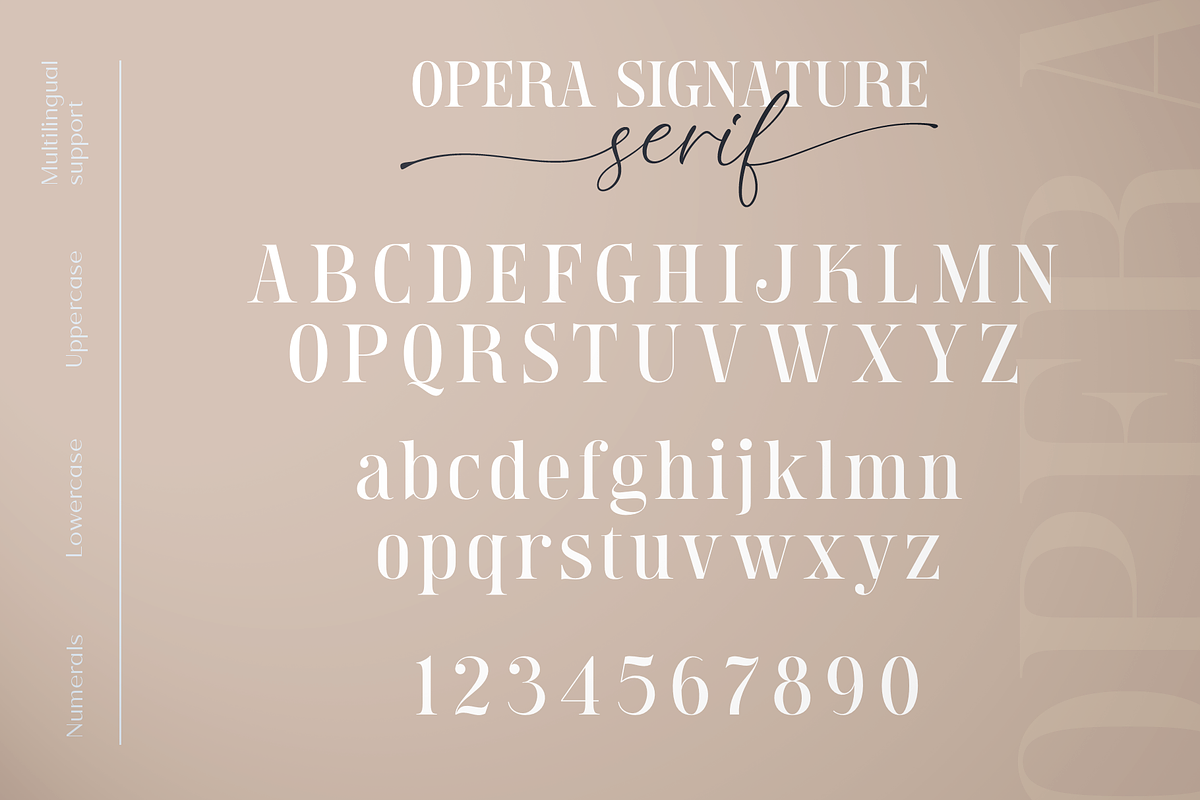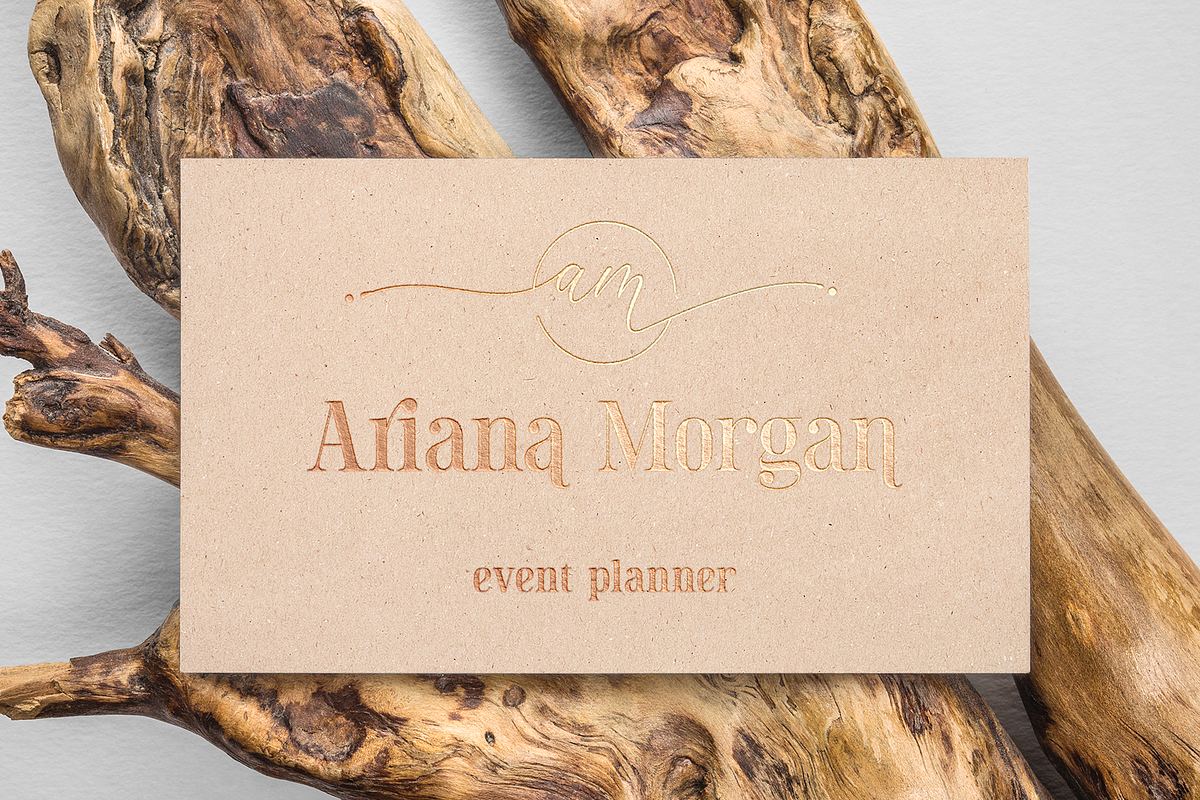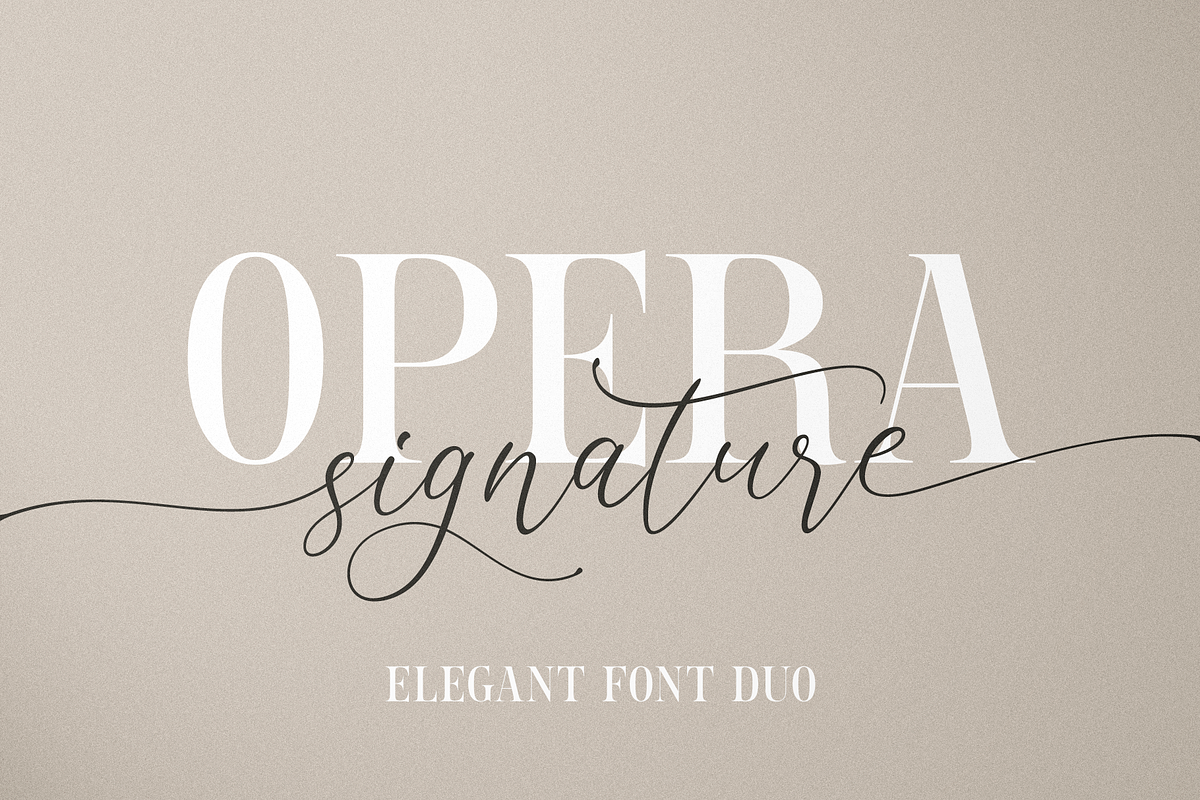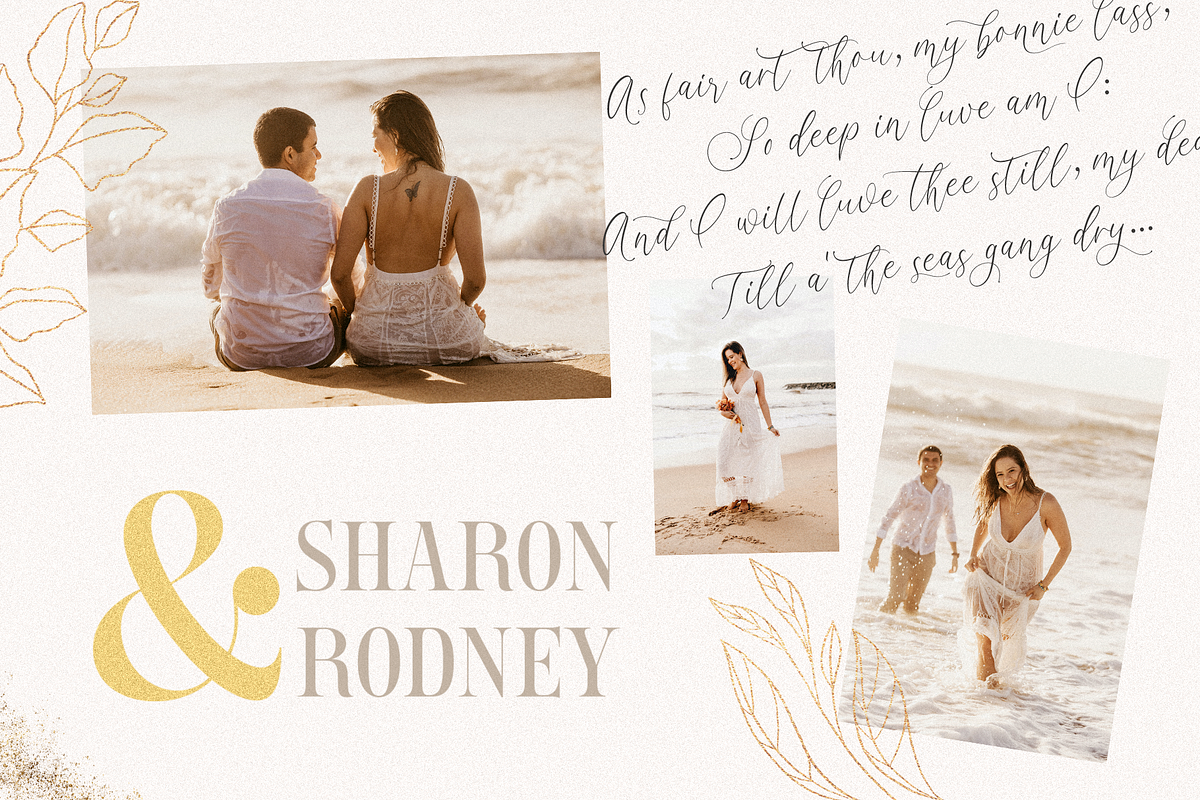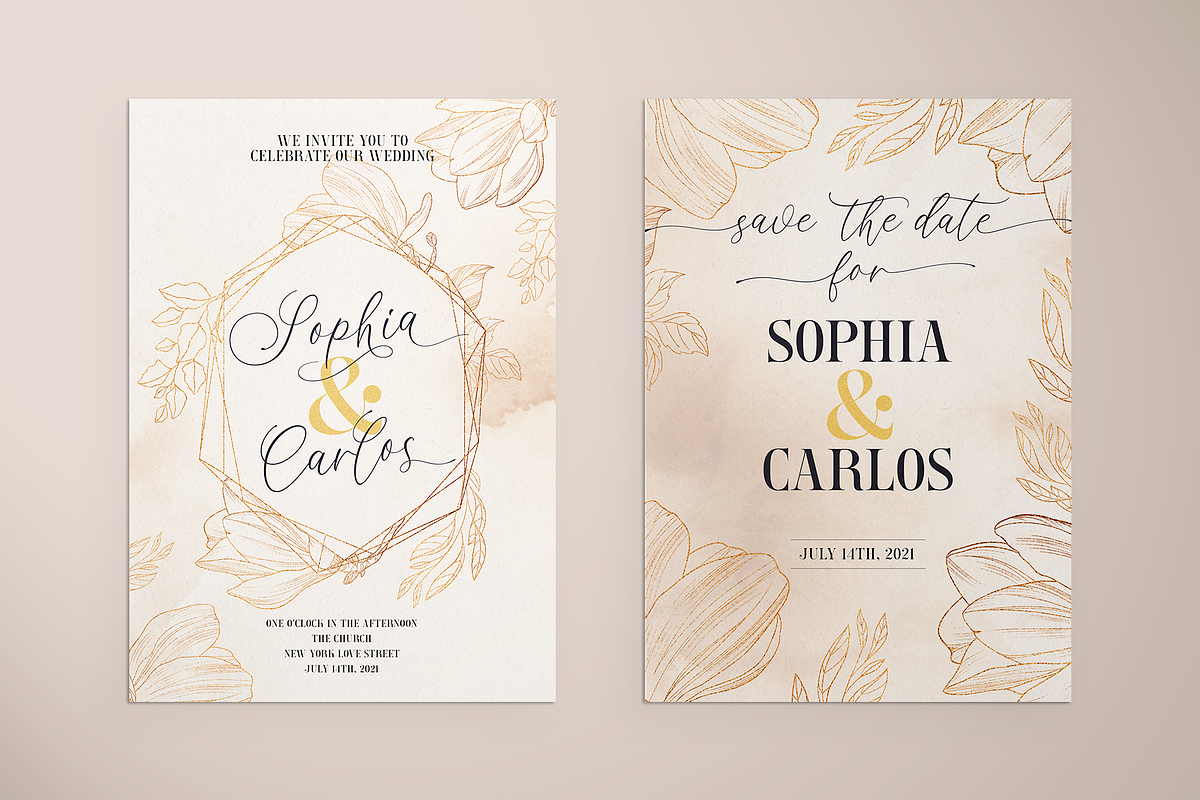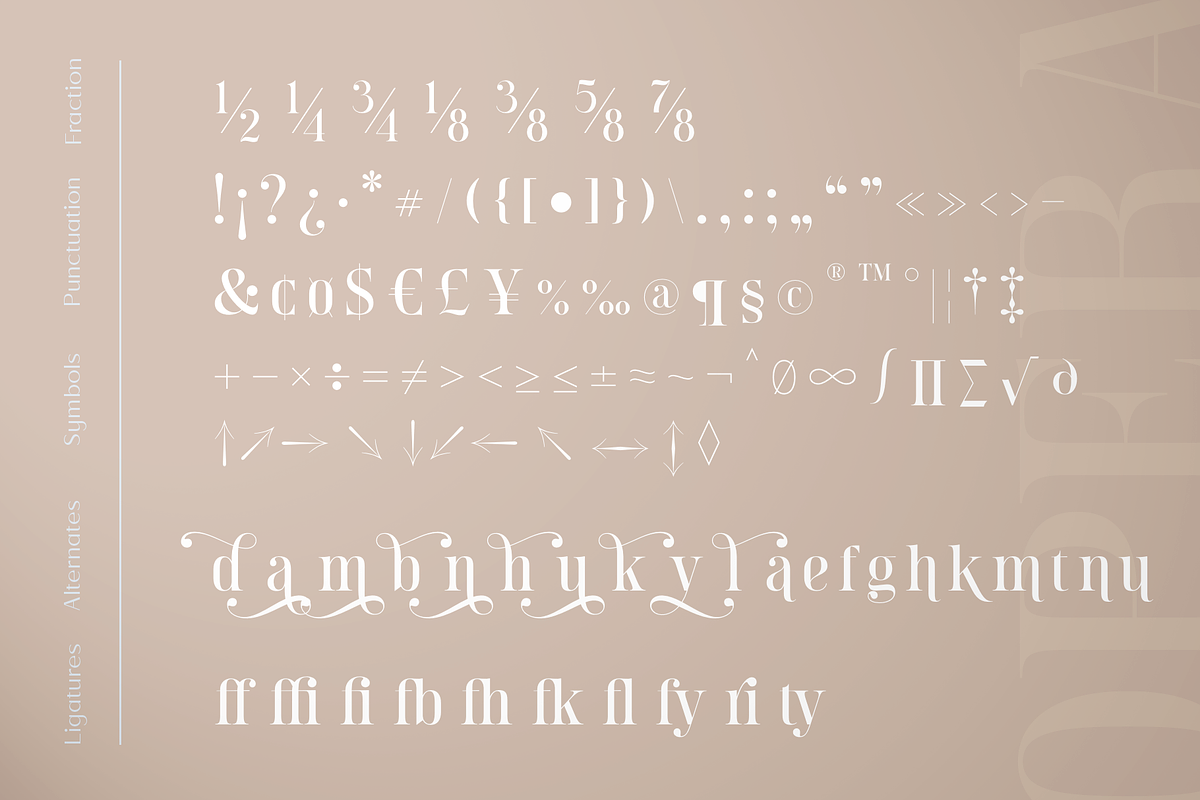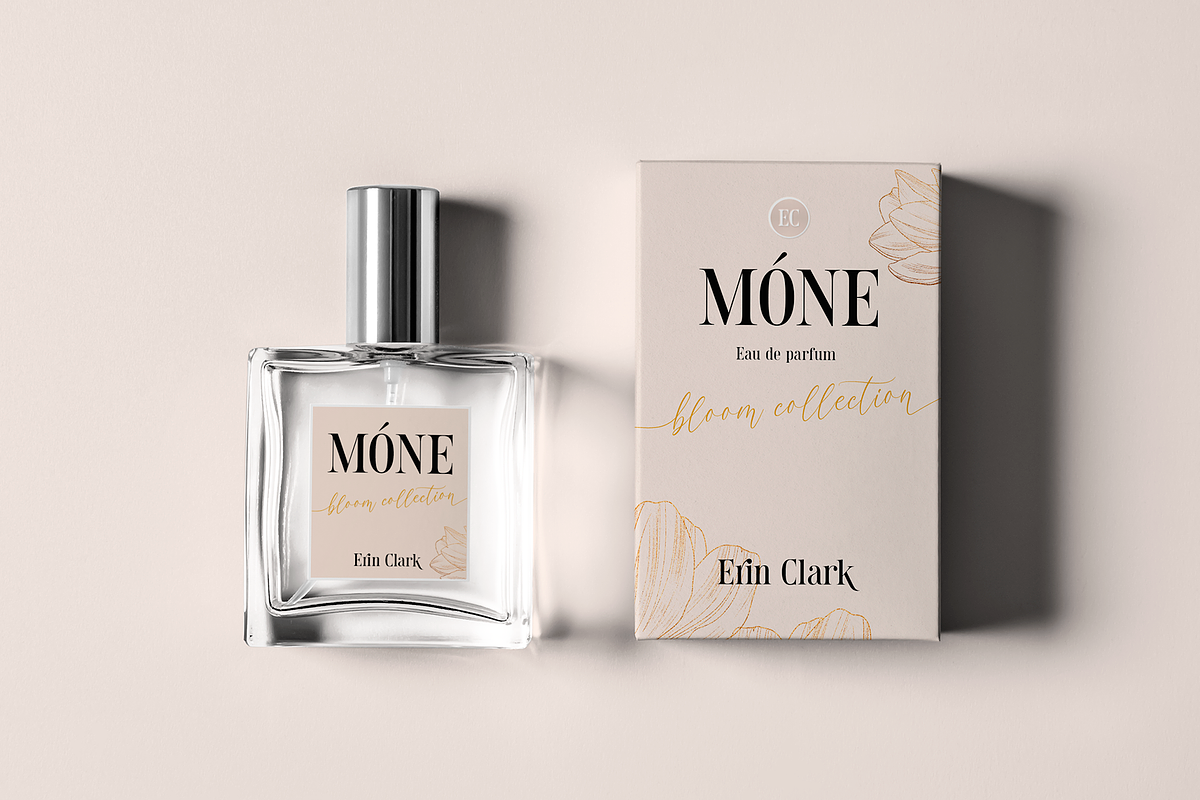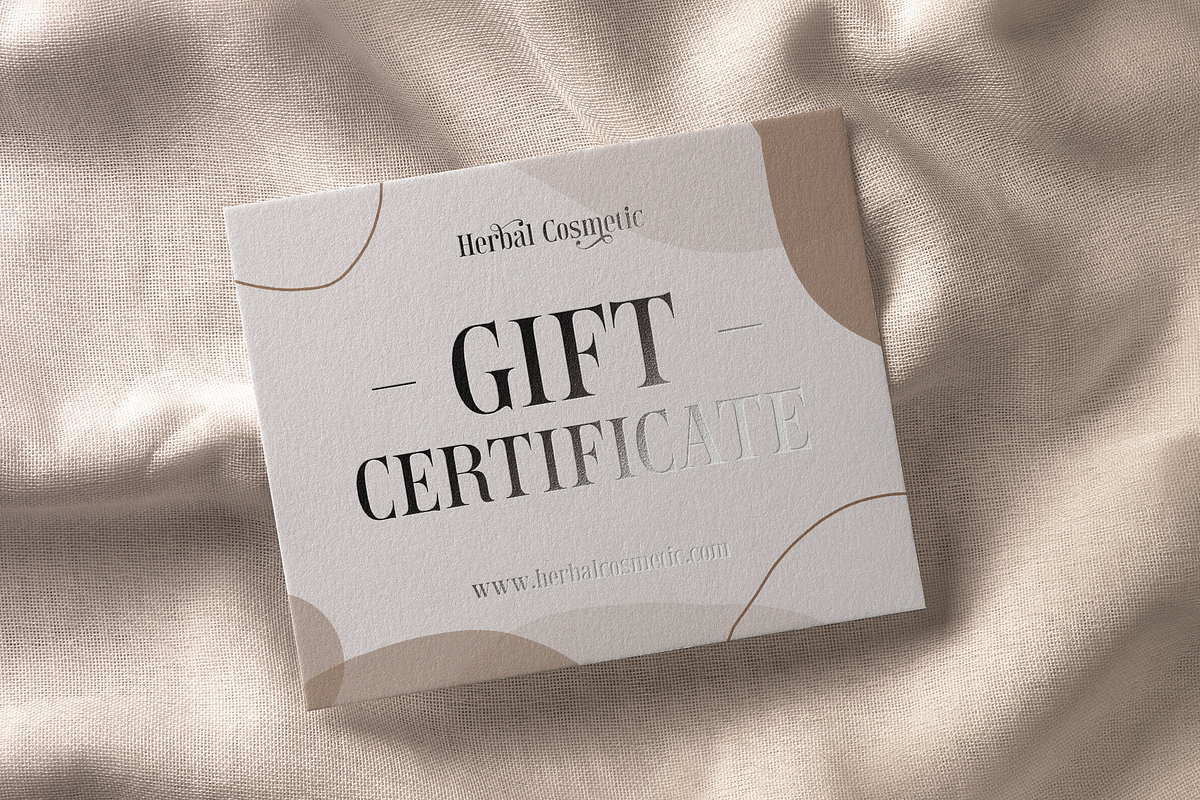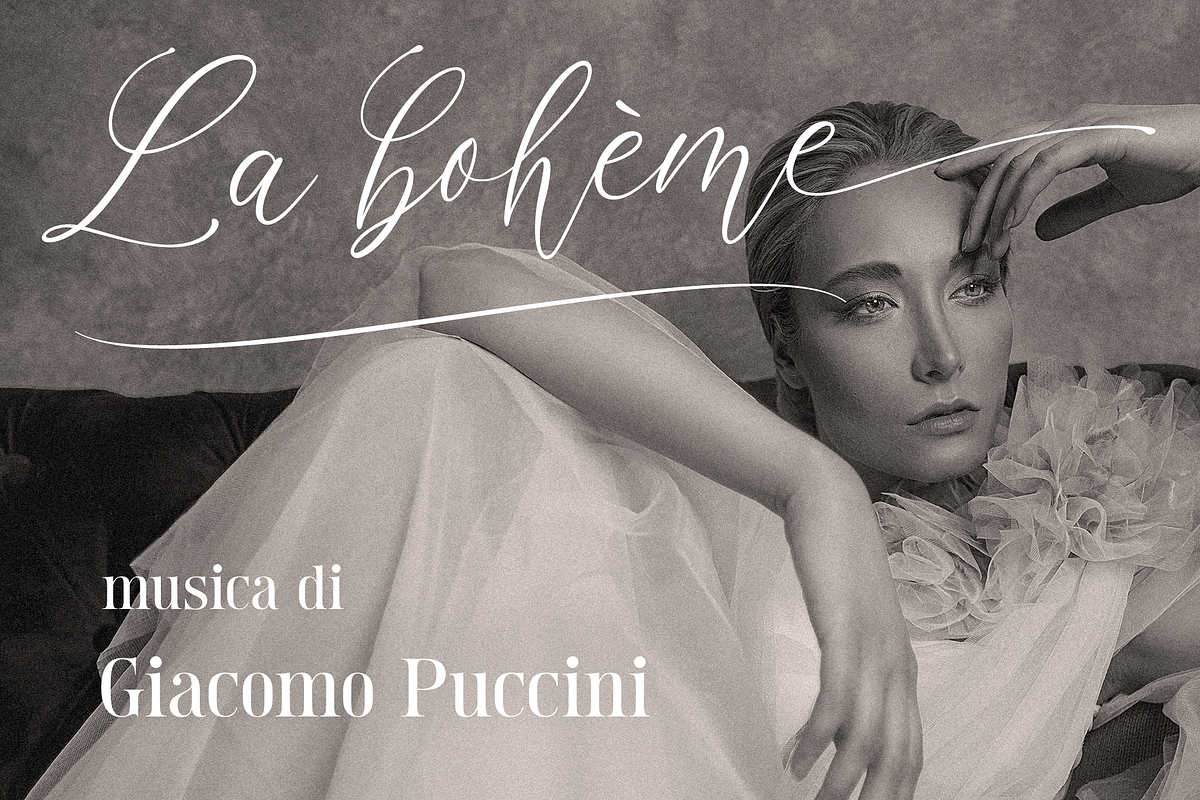
Opera Signature | Font Duo
Opera Signature is an elegant font duo that includes a serif font and a script font.
Serif font is a contrasting elongated font that is suitable for a wide variety of projects, such as: logos, labels, branding projects, magazines, home goods design, food packaging, wedding invitations, quotes, posters and much more, it also includes ligatures and alternates, with which you will add uniqueness to your project. Script is a handwritten font of modern calligraphy that includes alternates, swash, and initial and final forms for lowercase letters.
You can use these fonts individually or together, and they are perfectly combined with each other. This font is easy to use and has OpenType features.
Full alphabet with Uppercase and Lowercase A-z for Serif and Script
Numbers, fractions for Serif and Script
Punctuation and symbols for Serif and Script
Alternates for Lowercase for Serif and Script
Ligatures for Serif
Swash for Script
Initial and final forms for lowercase for script